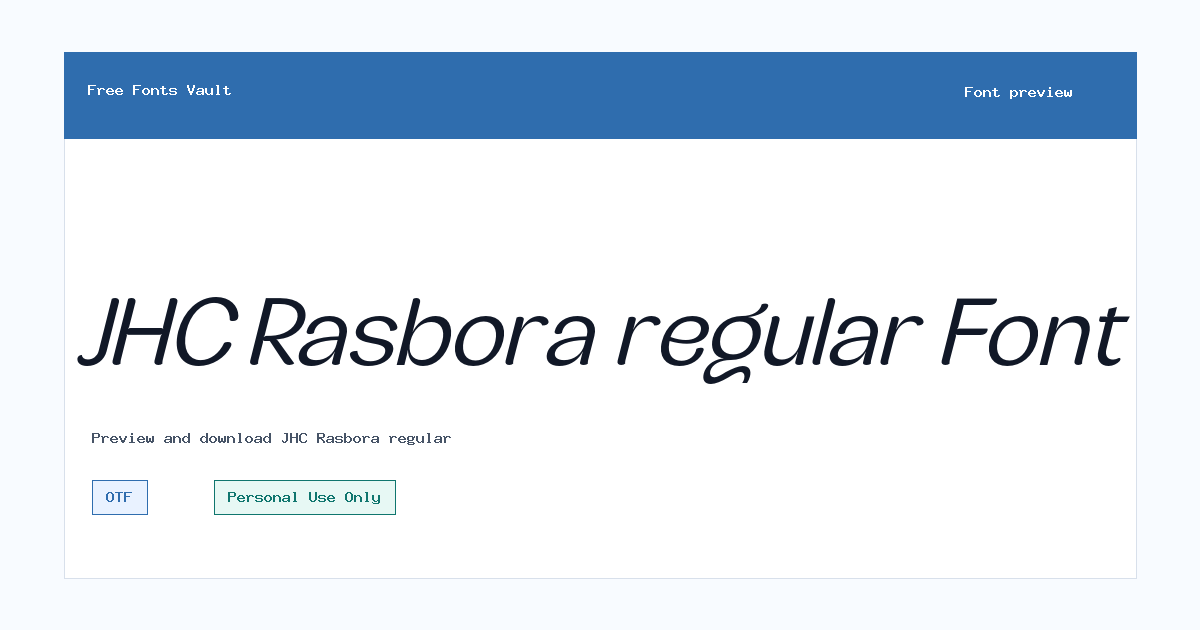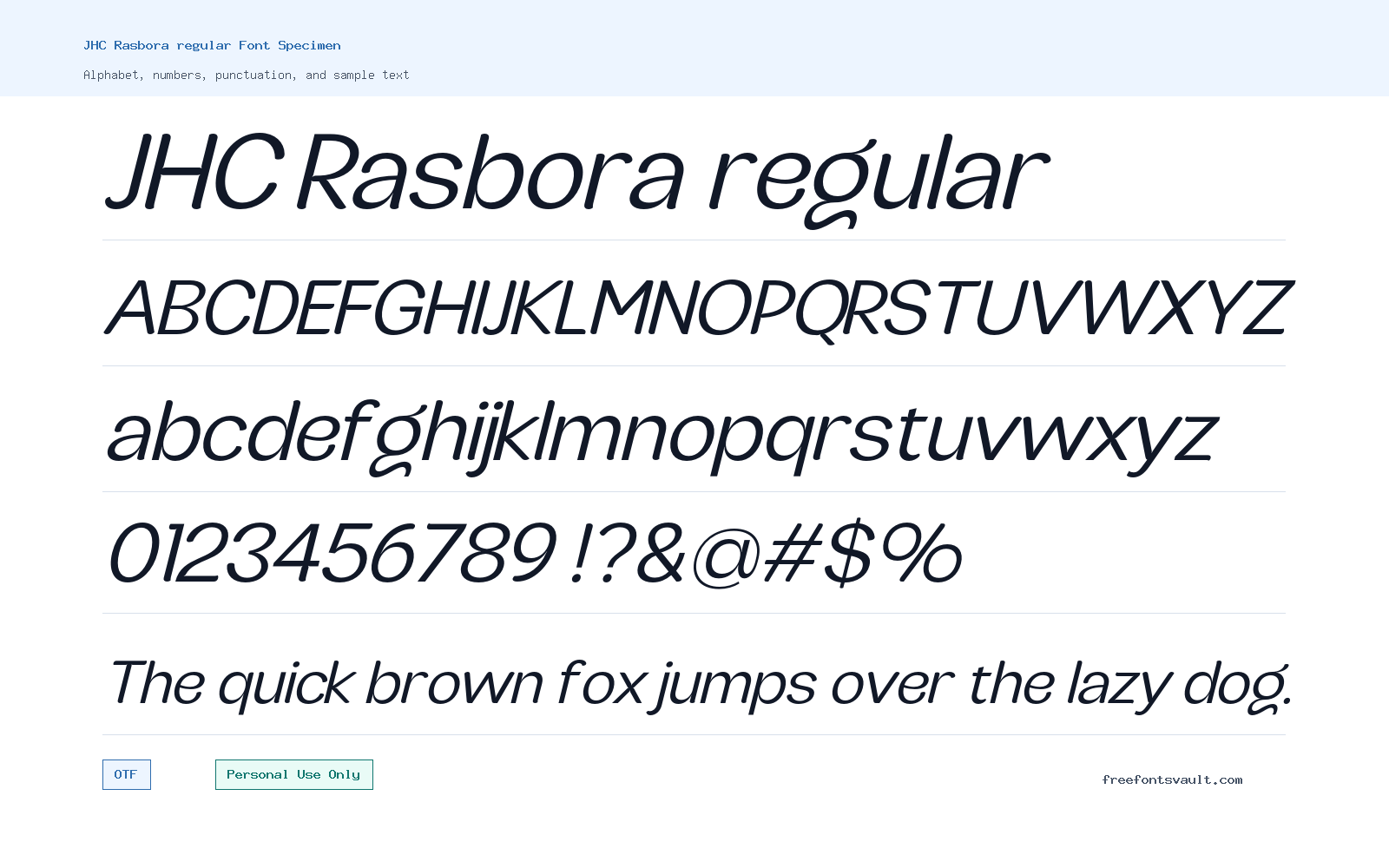
JHC Rasbora regular
- Designer Anwar Patihan
- Foundry Jehoo Creative
JHC Rasbora regular font.
JHC Rasbora regular is an italic sans serif font with a clean slant and a simple modern feel. It is best treated as a display-friendly type choice for short text, visual previews, and personal design experiments.
About JHC Rasbora regular
JHC Rasbora regular comes as an OTF font file in a regular italic style. Because the file is italic rather than upright, it naturally adds movement to words without needing heavy decoration. That makes it useful when a design needs a little energy but still needs the letters to stay readable. Use the preview box to test your own words before downloading, especially if you plan to use it for names, headings, short captions, social graphics, mockups, or title text.
For design work, JHC Rasbora regular is likely to work best in short settings rather than long paragraphs. Italic sans serif fonts can look stylish in logos, posters, web hero mockups, quote cards, packaging drafts, and branding studies, but they can become tiring when used for dense body copy. Try it at several sizes and with different spacing. If the letters feel too tight, add a little tracking. If the slant competes with other design elements, pair it with a plain upright sans serif for supporting text. For logo work, test the font in black and white first, then check it again at small sizes so the shape still holds up.
- Sans serif style suited to headings, names, mockups, posters, and display previews
- Works best when tested with custom wording, spacing, and real project sizes
- Personal logo drafts and branding studies
- Poster titles and event-style mockups
- Social media graphics and quote images
- Website hero text experiments
- Short names, labels, and display typography previews
- Typography practice and non-commercial design exploration
The designer is listed as Anwar Patihan, and the foundry is listed as Jehoo Creative.
Use JHC Rasbora regular for short text first. Test your exact wording in the preview, then check the font at small, medium, and large sizes. For cleaner layouts, pair it with a simple upright sans serif and let Rasbora handle the headline, name, or accent text.
Is this an italic font?
What kind of projects is JHC Rasbora regular good for?
It is best for short display text such as personal logo drafts, posters, social graphics, web mockups, and title treatments. It is less ideal for long body copy.
Who designed JHC Rasbora regular?
The designer is listed as Anwar Patihan, with Jehoo Creative listed as the foundry.
What should I pair it with?
Pair it with a simple upright sans serif for body text, captions, or navigation. This keeps the layout balanced and lets the italic style stand out where it matters.